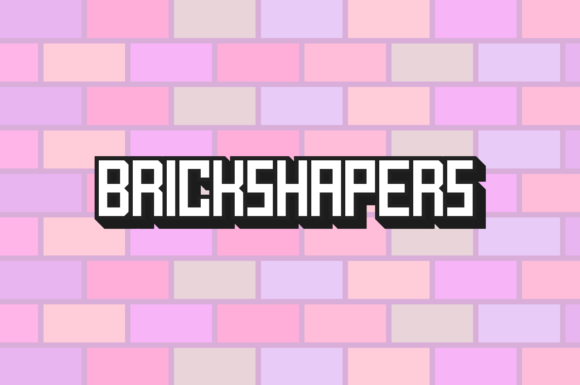
The Ultimate Guide to Brickshapers Font: A Chunky, Square Font for Cartoons and Video Games
An Honest Review of Brickshapers Font
So, what makes Brickshapers Font so special? Let’s take a closer look:
- ✨ Chunky and bold: Brickshapers Font is perfect for making a statement with your text. Its thick, square lines give it a fun, playful feel that’s hard to resist.
- ✅ Highly legible: Despite its chunky design, Brickshapers Font is surprisingly easy to read, even at smaller sizes.
- 🎨 Versatile: This font is perfect for a wide range of projects, from cartoons and video games to posters, flyers, and more.
Of course, no font is perfect, and Brickshapers Font has a few quirks to be aware of:
- 🤔 Limited stylistic range: While Brickshapers Font is amazing in its default form, it doesn’t offer a huge range of stylistic alternates or variations.
- ⚠️ Not ideal for body text: Due to its chunky design, Brickshapers Font is best suited for headlines, titles, and short bursts of text. It may not be the best choice for longer blocks of text.
The Backstory of Brickshapers Font
Rumor has it that Brickshapers Font was created by a team of designers who wanted to create a font that would bring a sense of playfulness and fun to the world of cartoons and video games. Inspired by classic arcade games and 8-bit graphics, Brickshapers Font was born.
| Font Name | Brickshapers Font |
| Author | Chequered Ink |
| What is Brickshapers Font best used for? | Brickshapers Font is perfect for cartoons, video games, posters, flyers, and any project that needs a bold, playful touch. |